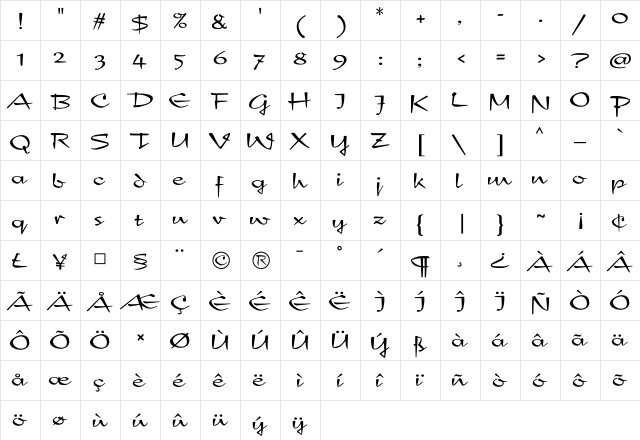
NewDay Script
| Style | Script |
Design Context for NewDay Typeface
NewDay brings a calligraphic fluidity to the page — its connecting strokes and expressive curves give it an unmistakably human quality.
Font Pairing: Combine NewDay with a simple geometric sans for maximum contrast — the tension between flowing curves and clean structure is a classic typographic pairing.
Pro Tip: Use NewDay for short runs of text — names, titles, or taglines. Extended body copy in script faces tires the eye quickly.